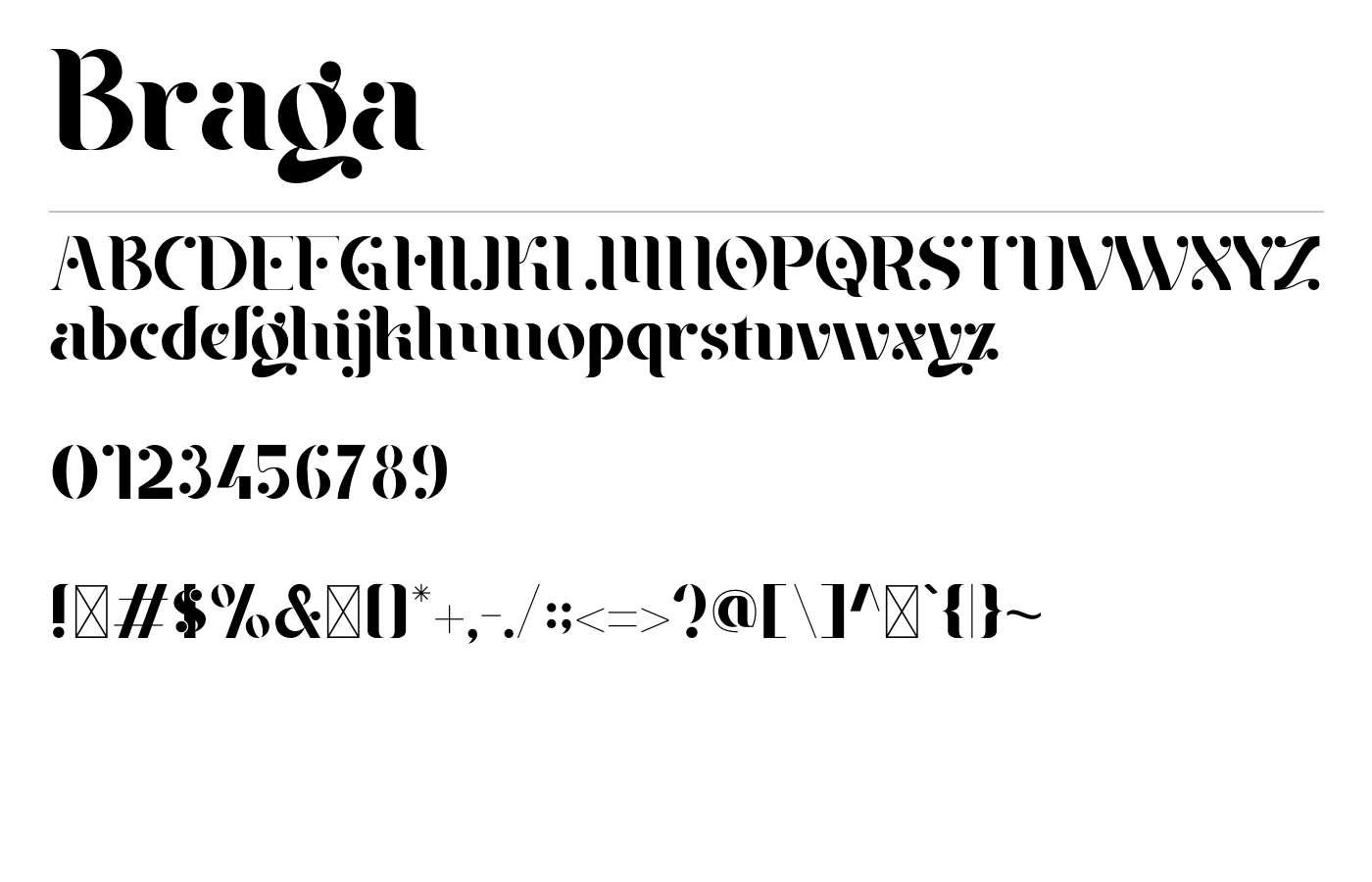
Braga is a bold, high-contrast serif font with a stylish, modern twist characterized by thick, rounded strokes paired with delicate, circular dots and unique terminal flourishes. Its playful yet elegant design makes it perfect for luxury branding, fashion magazines, and eye-catching headlines where a distinctive, artistic flair is desired. This font brings a contemporary sophistication and personality to any creative project.
Braga Font
About Braga Font
| Font family | Braga Font |
| Designer | Diki Pradipta Tri Atmojo |